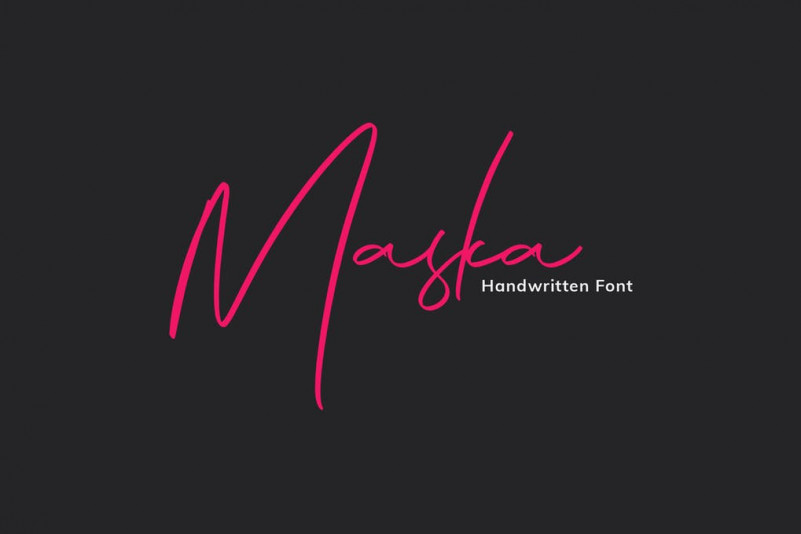
Maska Font
We introduce Maska, the handwritten script fonts with a natural free flow. This look very sweet with a simple style. Maska have opentype features such as standard ligatures.
Great for logo, printed quotes, greeting card, invitation, and etc.